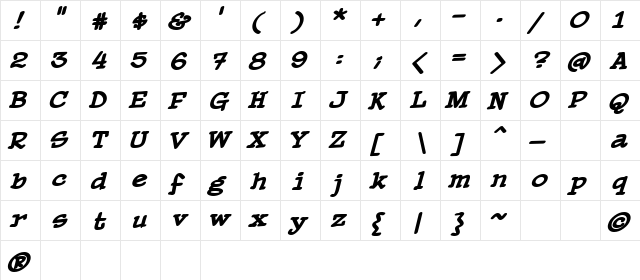
PaperBoy BB Italic
Design Context for PaperBoy BB Typeface
PaperBoy BB is a composed and adaptable typeface that performs quietly and consistently across a wide range of design contexts. The dynamic lean of this cut emphasises speed and emphasis in any layout.
Pro Tip: Try PaperBoy BB for annotation and caption copy alongside an upright companion — the contrast in angle creates a dynamic but ordered typographic system.